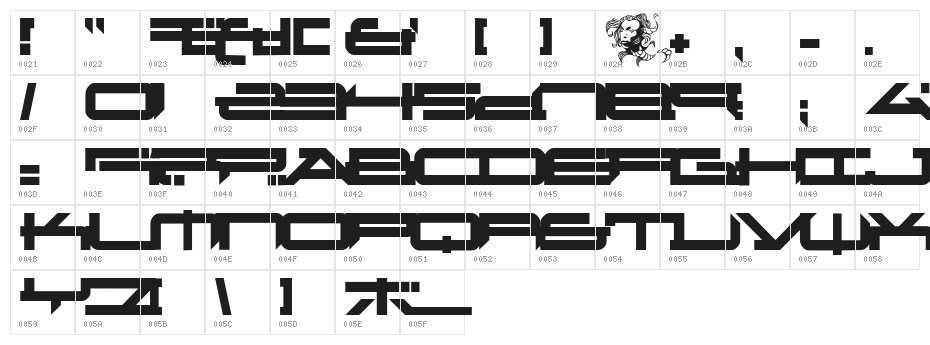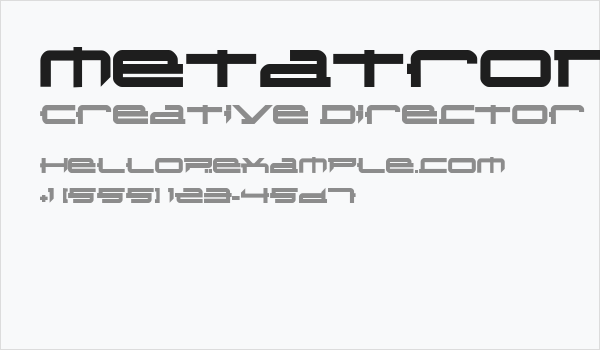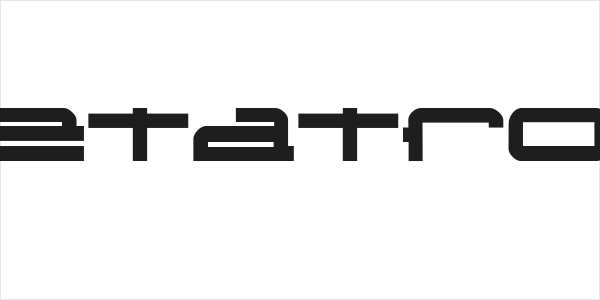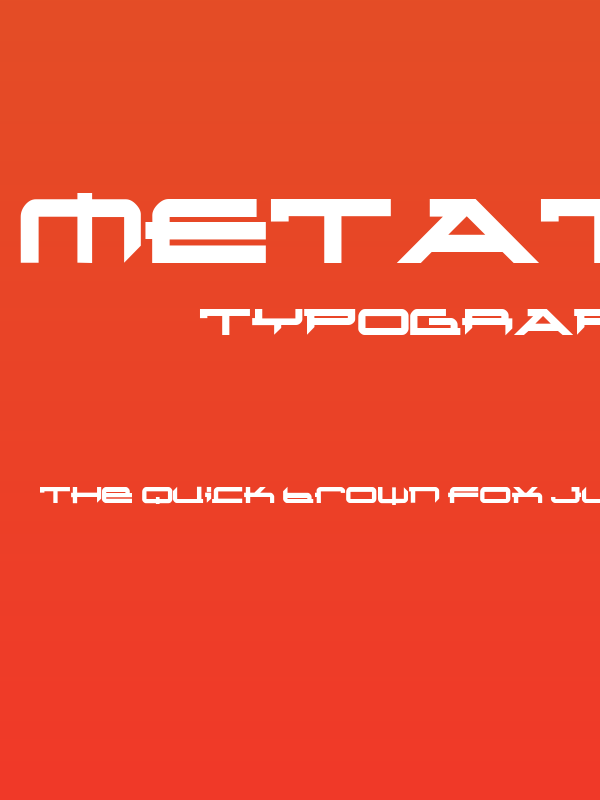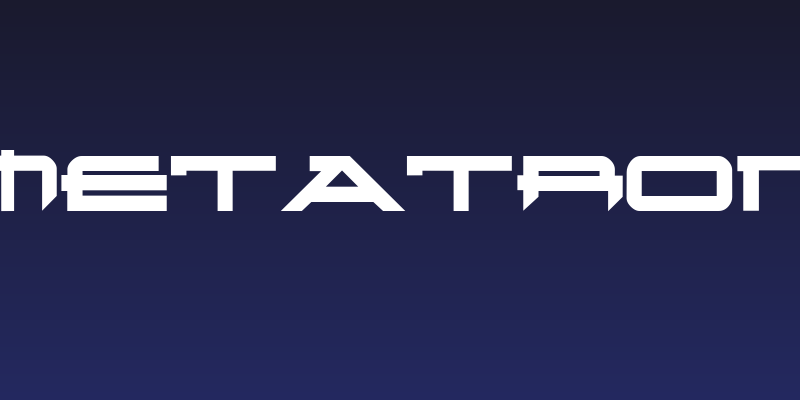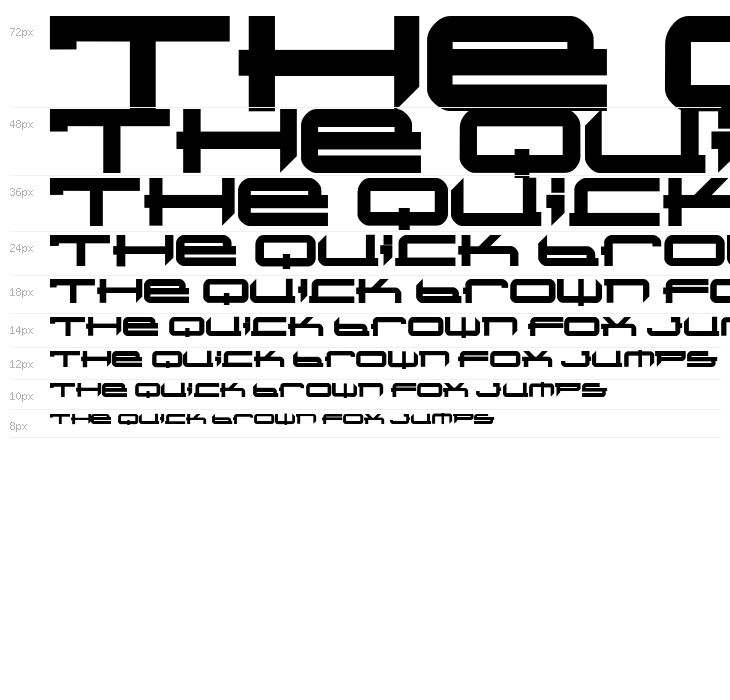
Metatron Font
Metatron Description
This font features a futuristic and geometric design with sharp angles and clean lines. The characters are bold and structured, giving a sense of modernity and technological advancement. The uppercase and lowercase letters maintain a consistent style, with unique cuts and edges that create a distinctive appearance. The numerals and special characters follow the same design principles, ensuring uniformity across all glyphs. This font is ideal for projects that require a modern and edgy look, such as technology branding, sci-fi themes, or digital interfaces.
Proposed ProjectsIdeal for technology branding, sci-fi themes, digital interfaces, and modern advertising.